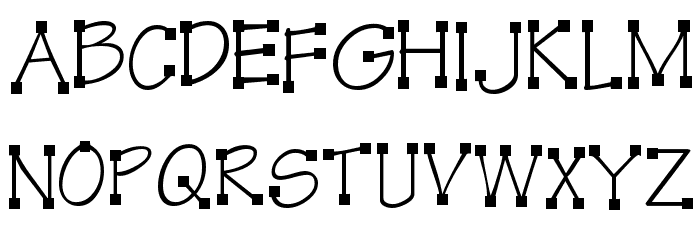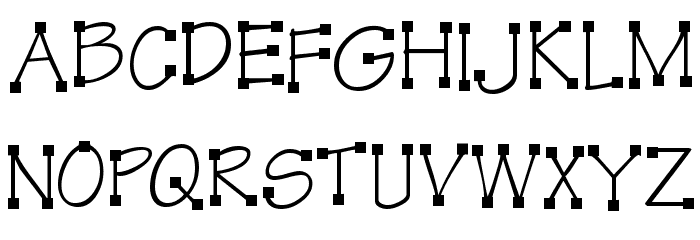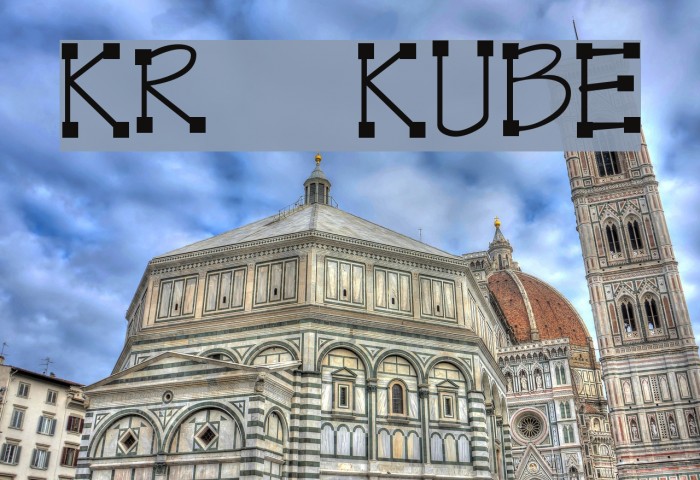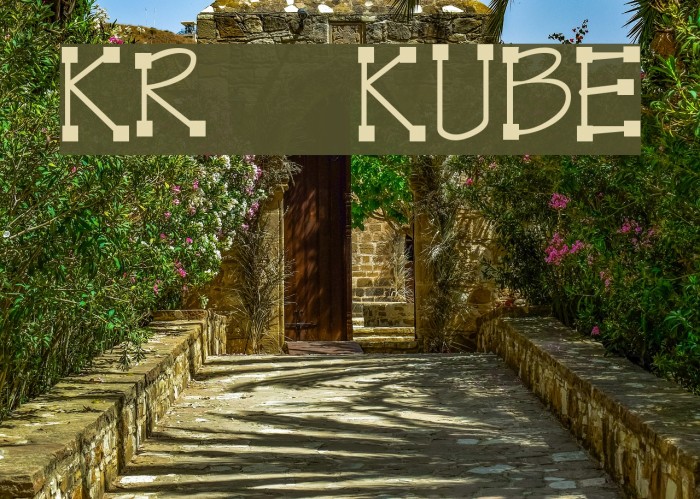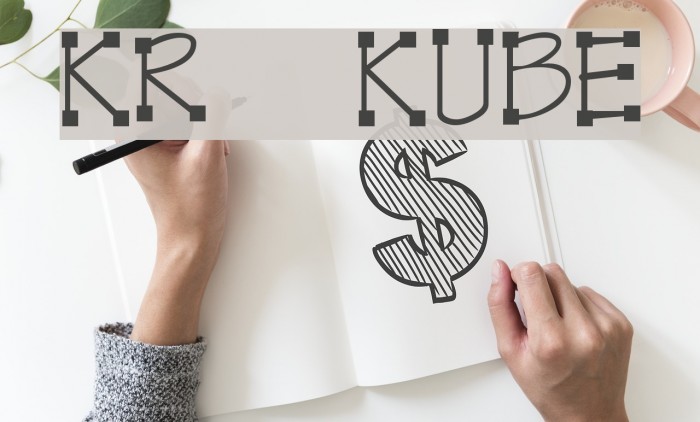
KR Kube Font
This font features a unique and playful design with a distinct geometric influence. Each character is constructed with a combination of straight lines and rounded edges, creating a modern and quirky appearance. The letters have a consistent height and width, giving the font a uniform look. The use of bold, square serifs adds a touch of strength and stability, while the slight curvature in some strokes introduces a sense of movement and dynamism. This font is well-suited for creative projects that require a bold and eye-catching typeface.
A playful, geometric font with bold serifs and a modern flair.
- Proposed Projects: Ideal for posters, branding, children's books, and creative digital media.